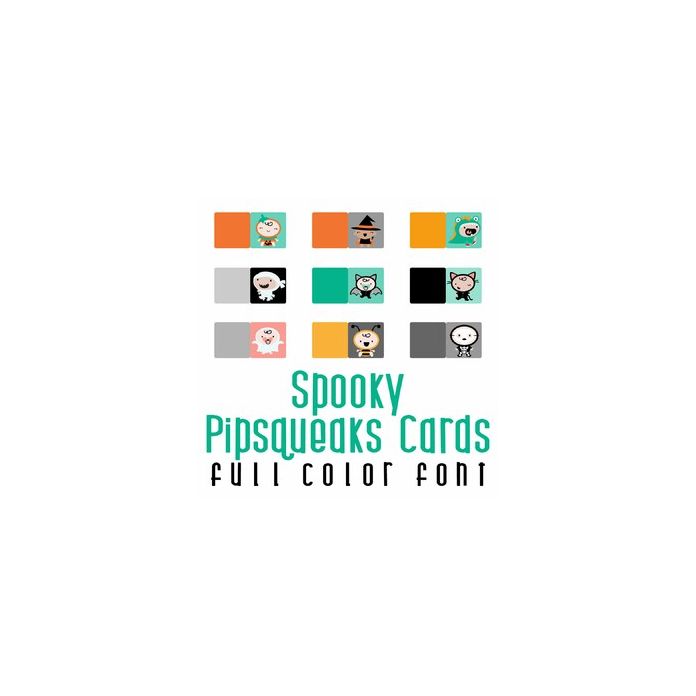
This adorable full-color doodlebat font features 52 Halloween pipsqueaks cards dressed in their favorite costumes. Perfect for cards, crafts, gifts, decor, scrapbook pages, planner stickers, and more! The uppercase and lowercase have opposite skin colors.